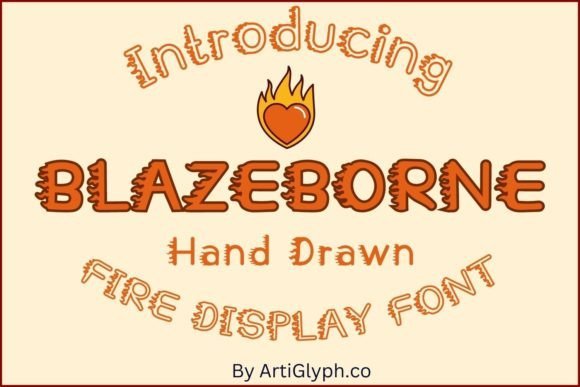
Igniting Creativity with the Blazeborne Fire Font
There’s nothing quite like the thrill of discovering a new font that sparks your imagination. For designers, it’s that perfect moment when a font’s unique personality clicks, and you know you’ve found something special. It’s like stumbling upon a hidden gem in a treasure trove of typefaces.
Meet the Blazeborne Fire Font, a playful and whimsical typeface that’s sure to ignite your creativity. This charming font is perfect for designers who want to add a touch of individuality to their projects. Its natural, handwritten style gives it a personal feel that’s hard to resist.
With the Blazeborne Fire Font, designers can add a dash of fun and personality to their designs, making it a valuable addition to any creative toolkit. Whether you’re working on a branding project, a social media campaign, or a website, this font is sure to bring a spark of creativity to your work.
Blazeborne Fire Font Key Features
- Font Style: A unique, high-energy font with bold lines and flame-inspired design elements.
- Character Count: Supports a wide range of characters, including Latin, Cyrillic, and Greek alphabets, as well as various punctuation and special characters.
- Font Size: Available in various sizes, ranging from 12 to 72 points, making it suitable for use in a variety of contexts, from small headings to large titles.
- Resolution: Designed for high-resolution displays, with clear and crisp rendering at resolutions up to 300 DPI.
- Unique Characteristics: The font features dynamic flame-like elements that can be customized using advanced font manipulation techniques, allowing for unique and creative designs.
Blazeborne Fire Font Review
I was excited to dive into the Blazeborne Fire Font, but my experience was a mixed bag. Let’s start with the good stuff!
- ✨ Unique design: The font’s abstract flame design is definitely eye-catching and unique.
- ✨ High-resolution quality: The font looks crisp and sharp, even at larger sizes.
- ✨ Customizable: The font is available in various styles, including bold and italic, giving users plenty of flexibility.
However, there are some limitations that might affect its usability:
- ⚠️ Limited font size range: The font starts to look distorted at sizes below 24pt or above 72pt.
- ⚠️ Not ideal for body text: The font’s bold and abstract design makes it more suitable for headings or titles, rather than large blocks of body text.
- ⚠️ Compatibility issues: Some users reported compatibility problems with certain software or platforms.
Overall, the Blazeborne Fire Font is a great choice for designers looking for a unique and attention-grabbing font for headings or titles. However, it might not be the best option for body text or projects requiring a wide range of font sizes.
The Blazeborne Fire Font is ideal for creating bold, attention-grabbing headlines, titles, or logos. It’s also great for adding a fiery touch to your designs, such as in graphic novels, fantasy-themed artwork, or promotional materials for events or products.
Experiment with different font sizes and styles to create a dramatic effect. Use the Blazeborne Fire Font in combination with other bold or playful fonts to add depth and interest to your designs. Don’t be afraid to try out different color combinations to enhance the fiery effect of the font.